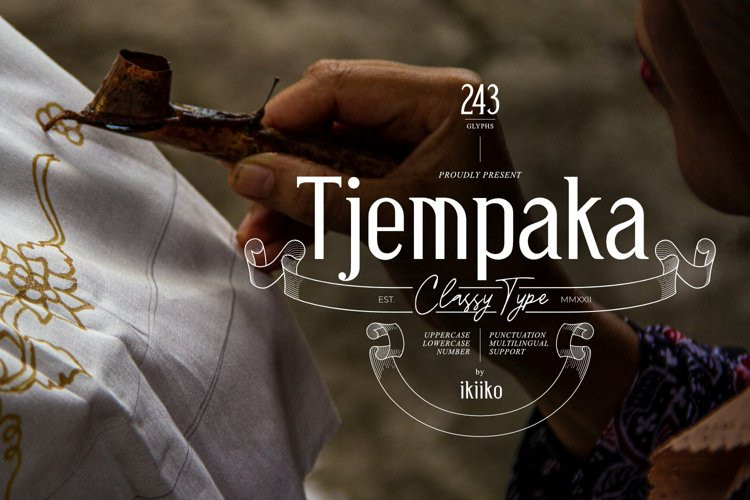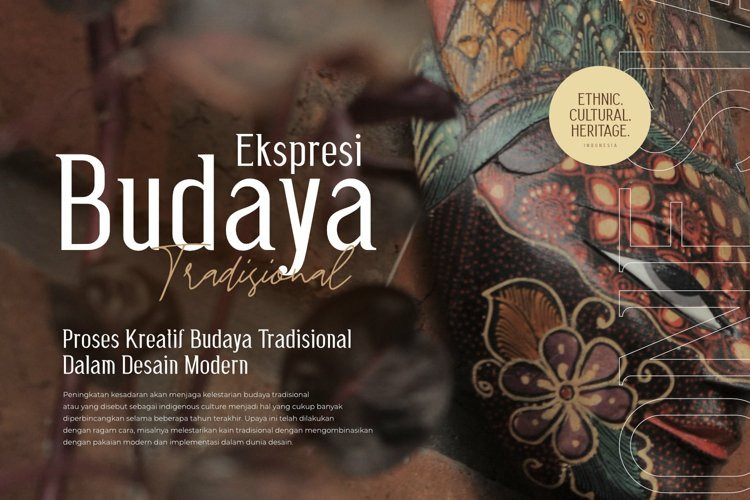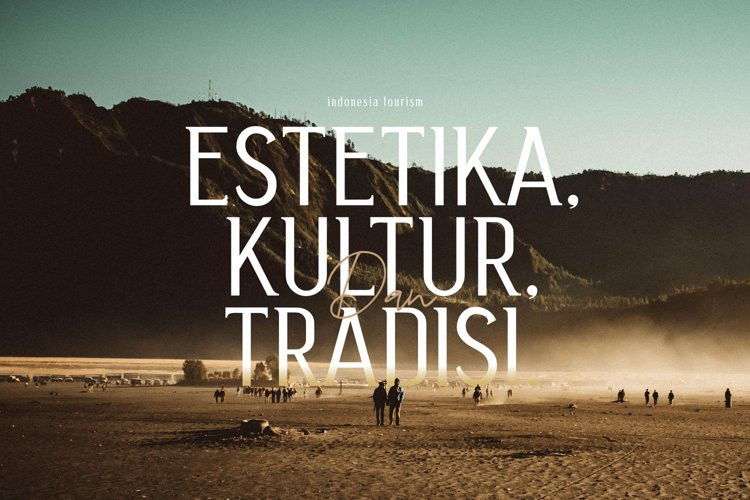
Tjempaka Font
Tjempaka is a modern condensed serif type with a elegant style. This font shape is simple form character with vintage touch. This typeface is perfect for an brand logo, magazine design, travel design layout, wedding invitation, flyer design, poster design, inspirational quotes, photography layout, or simply as a stylish text overlay to any background image.